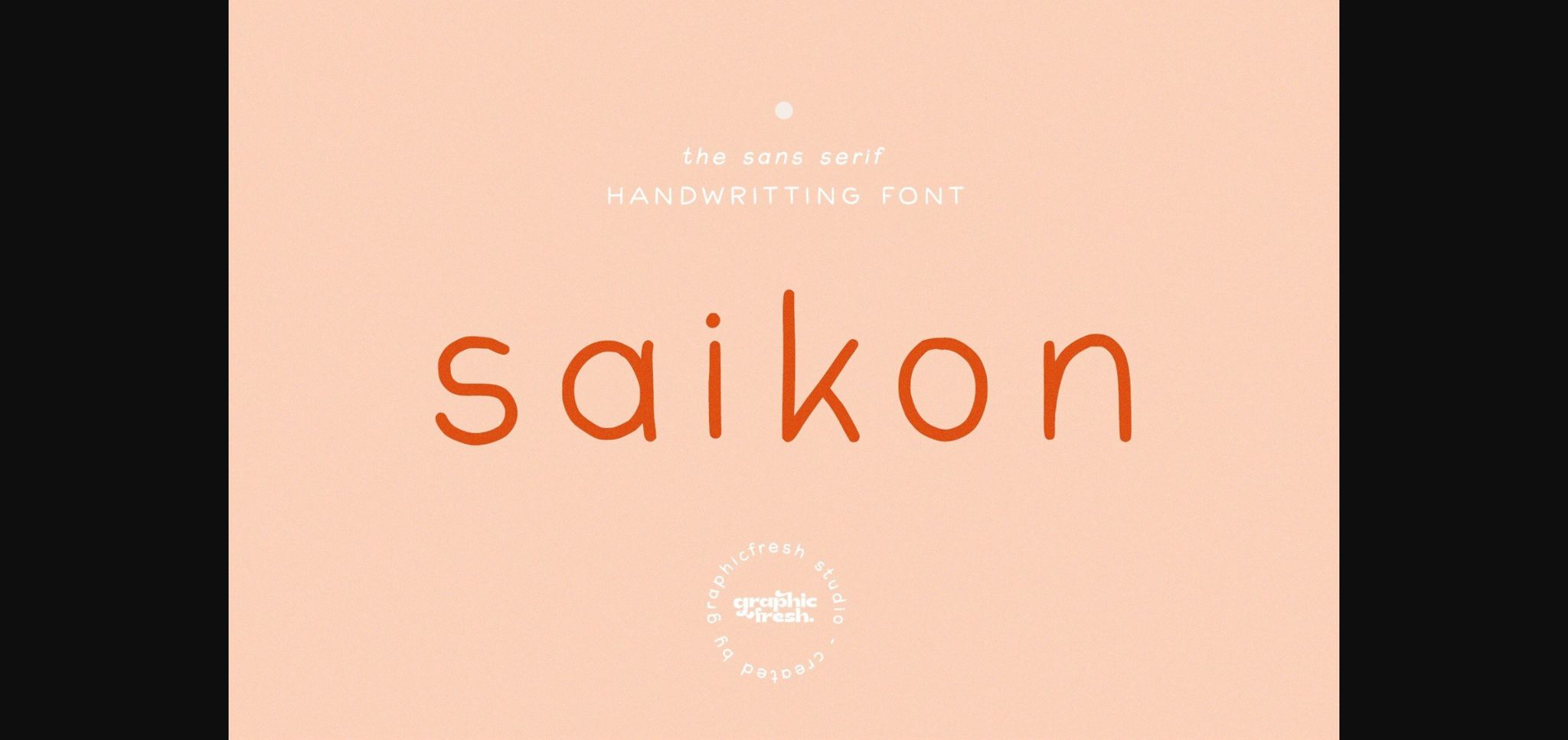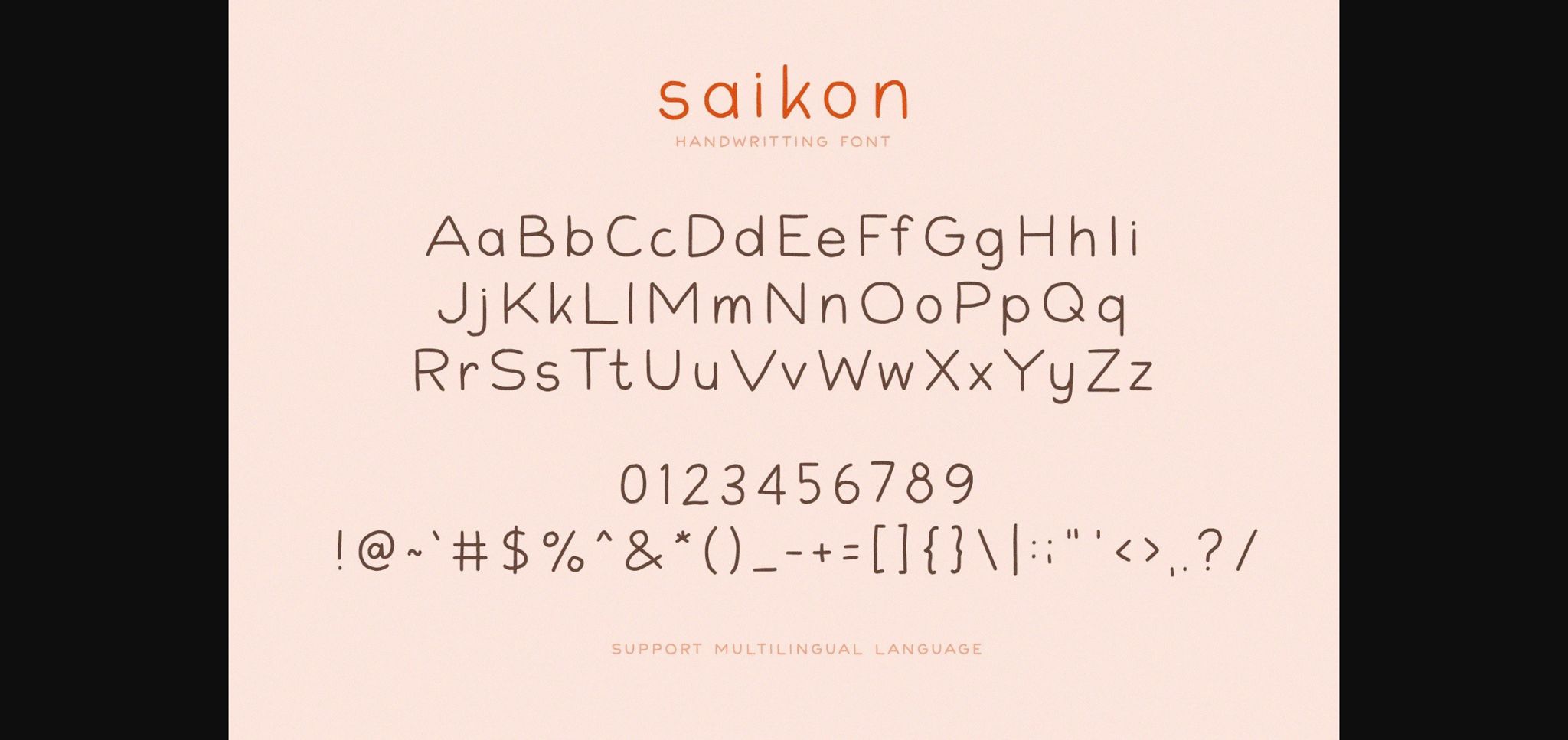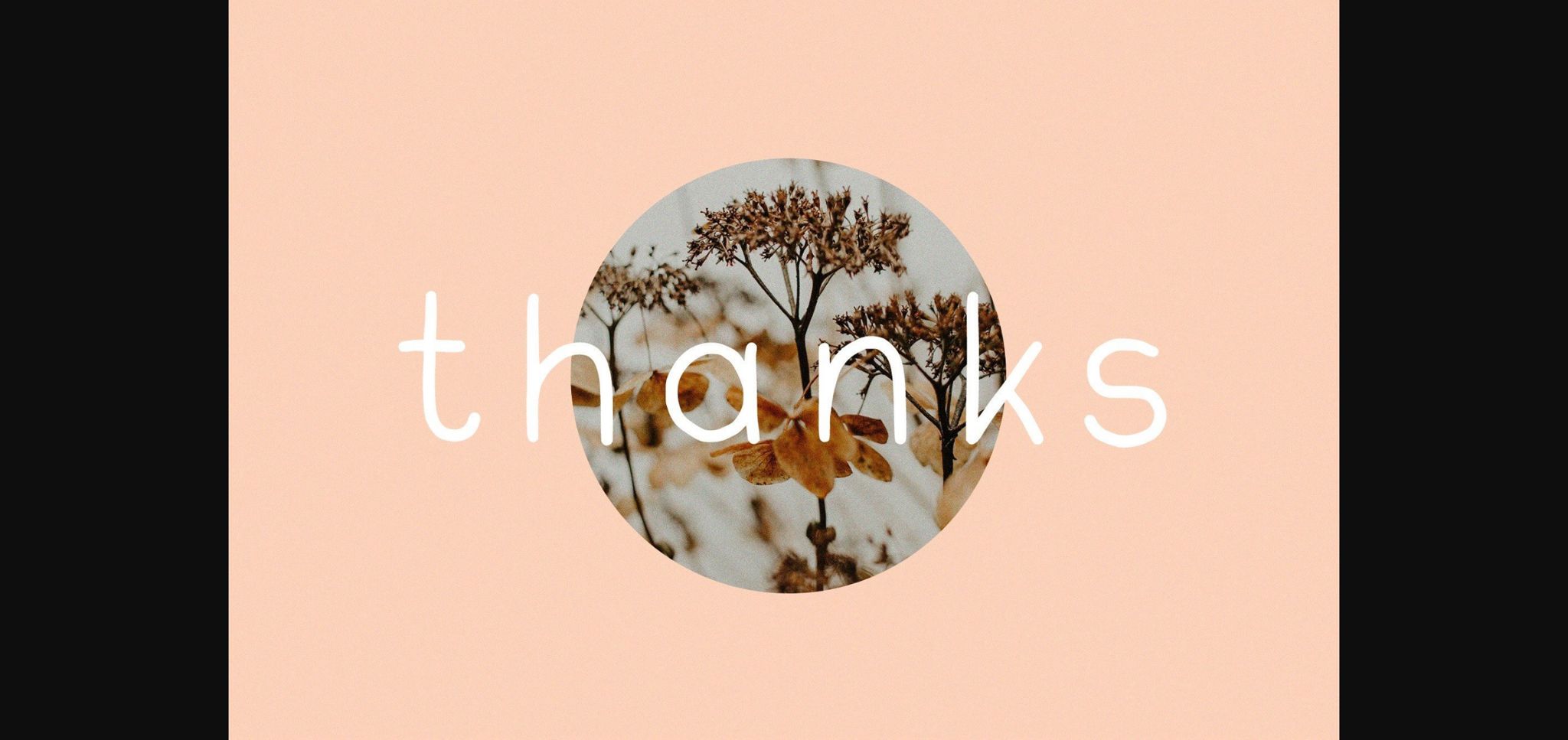
About Saikon Font
Saikon is a slim hand-made sans serif font. Every single letter has been carefully crafted to make your text look beautiful. it’s perfect for logos, name cards, magazine layouts, invitations, headers, or even large-scale artwork.